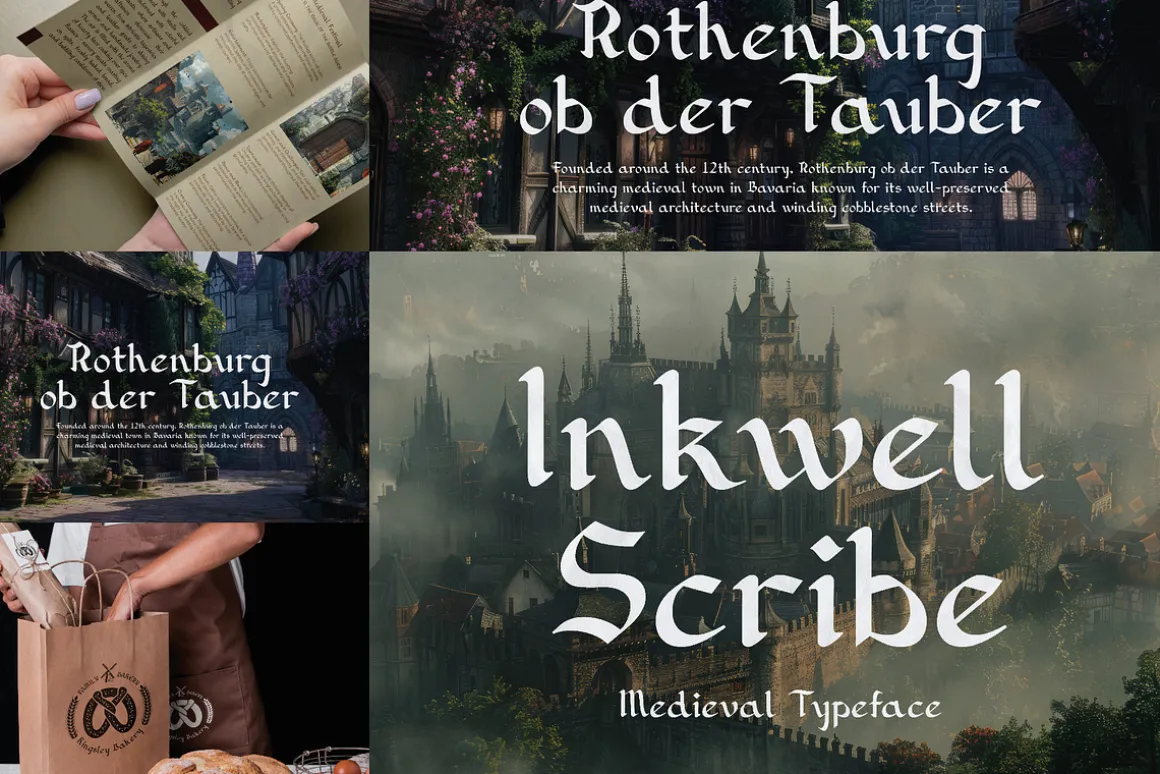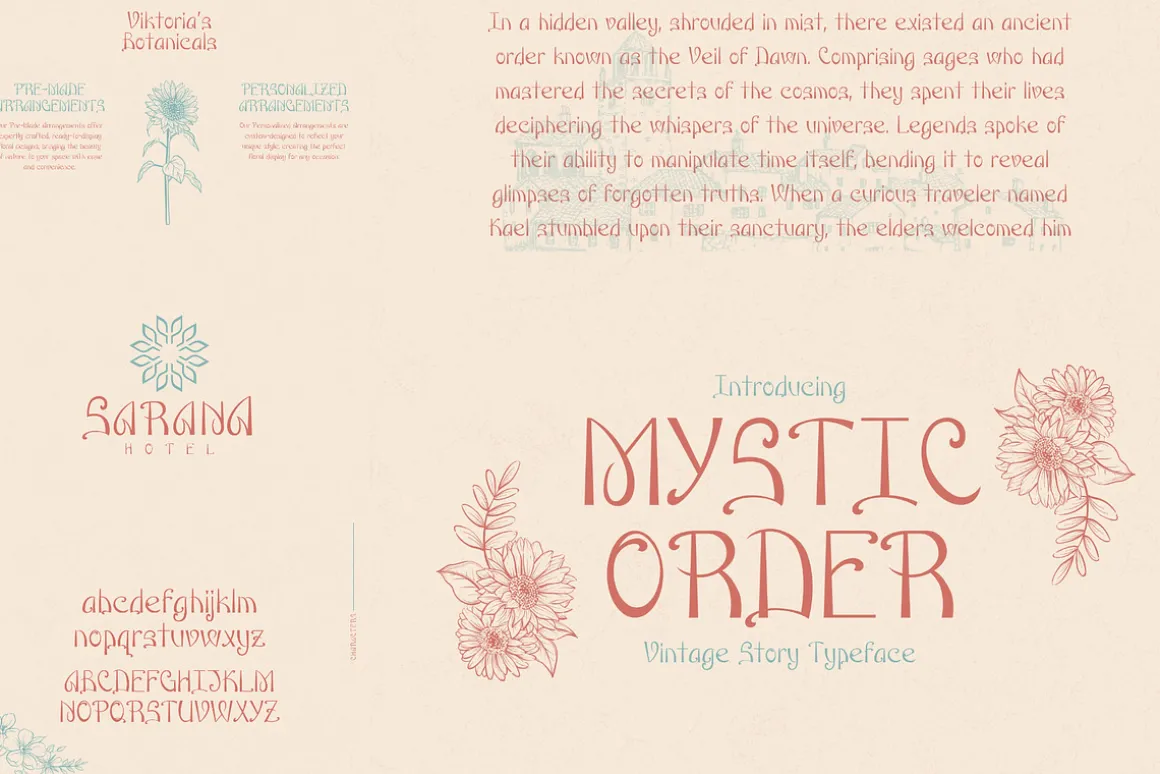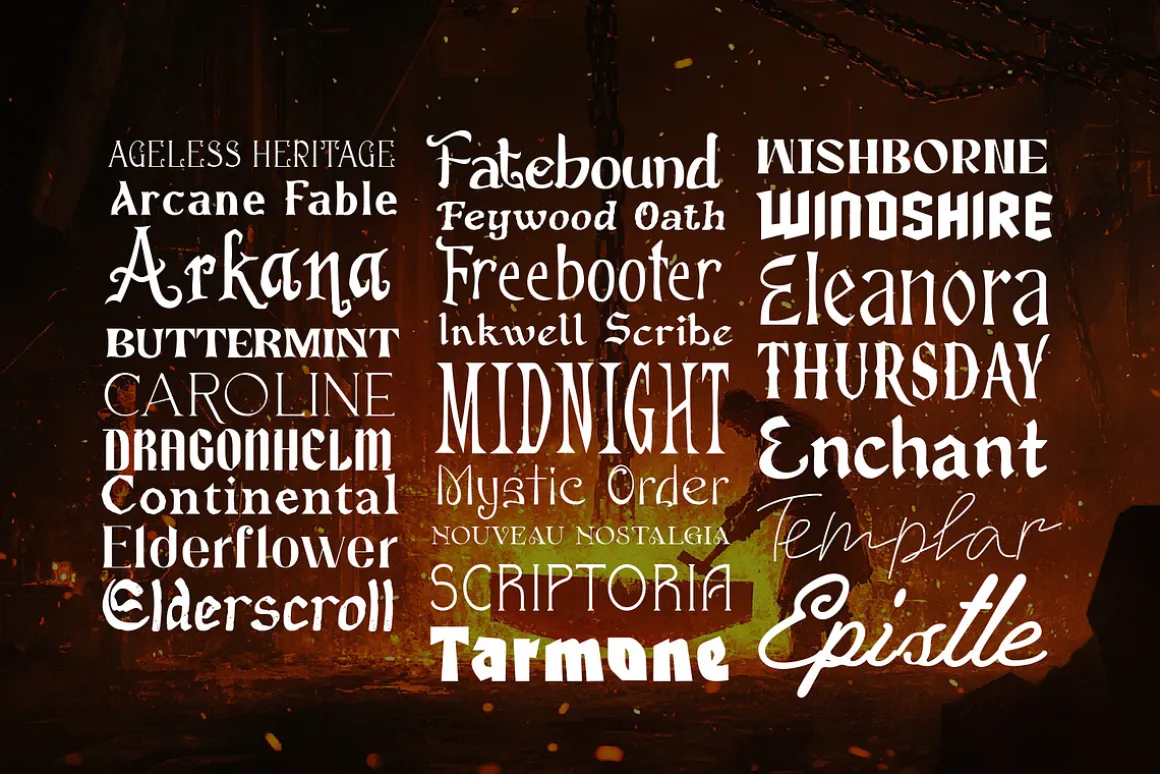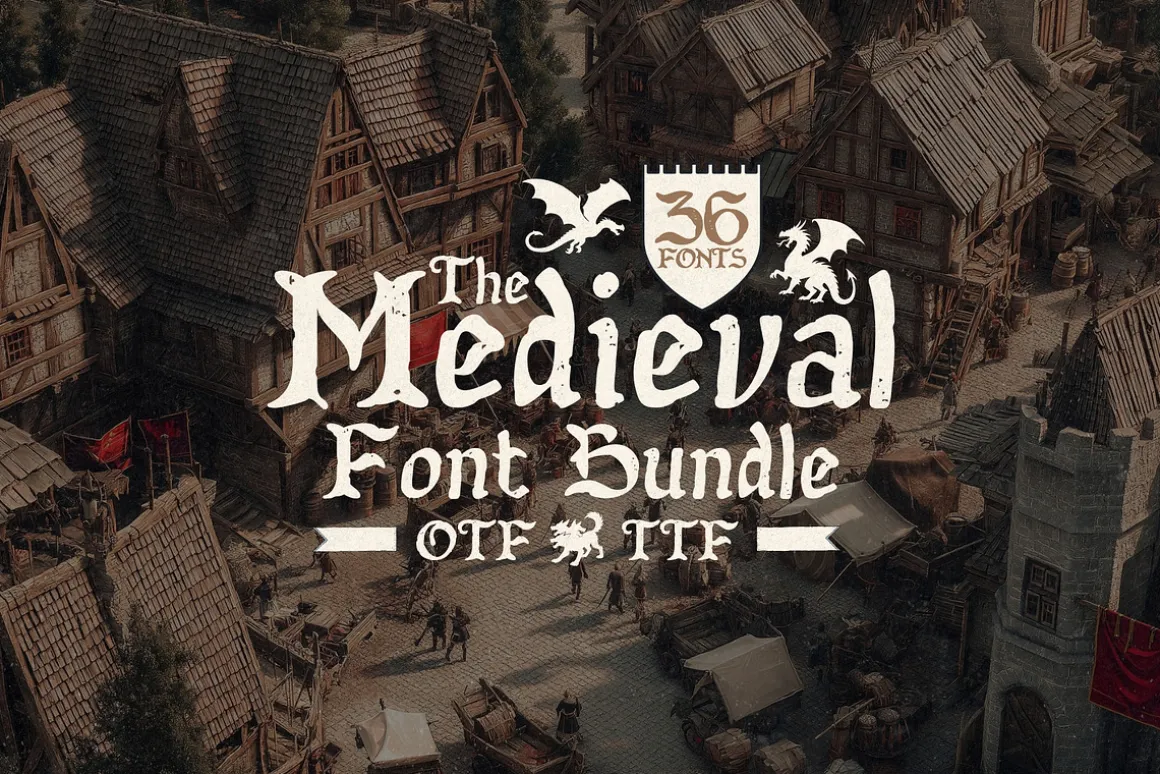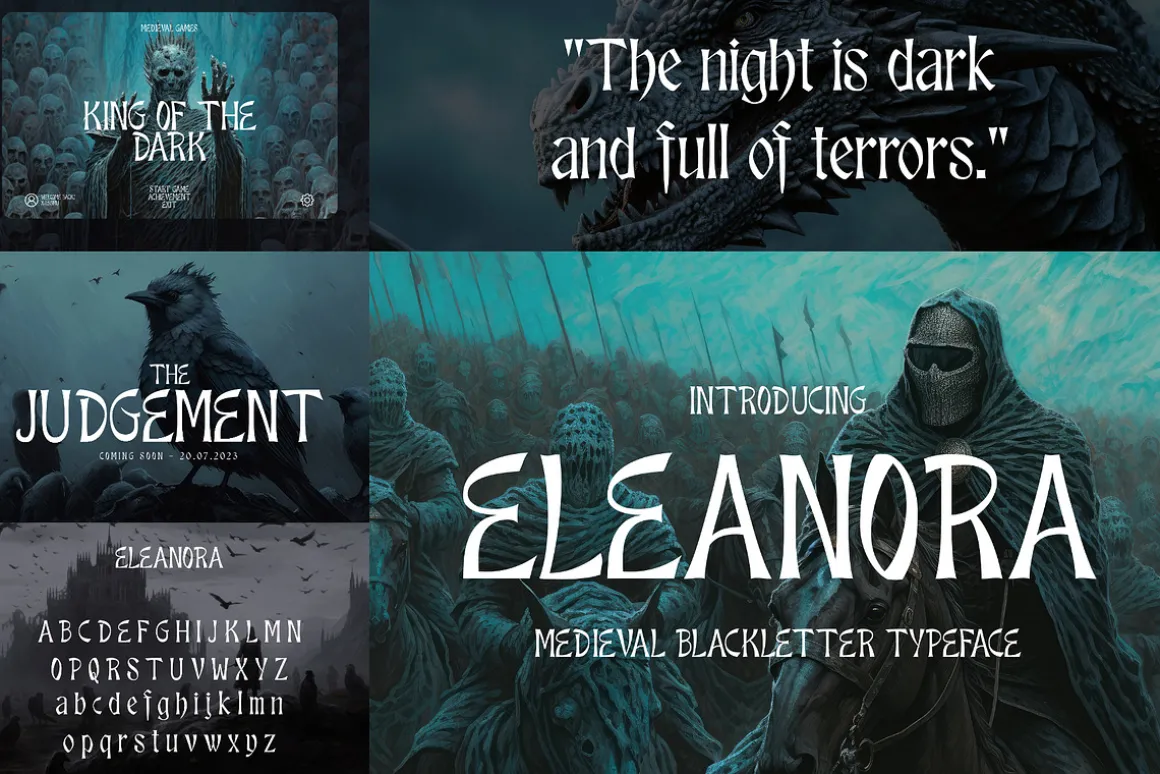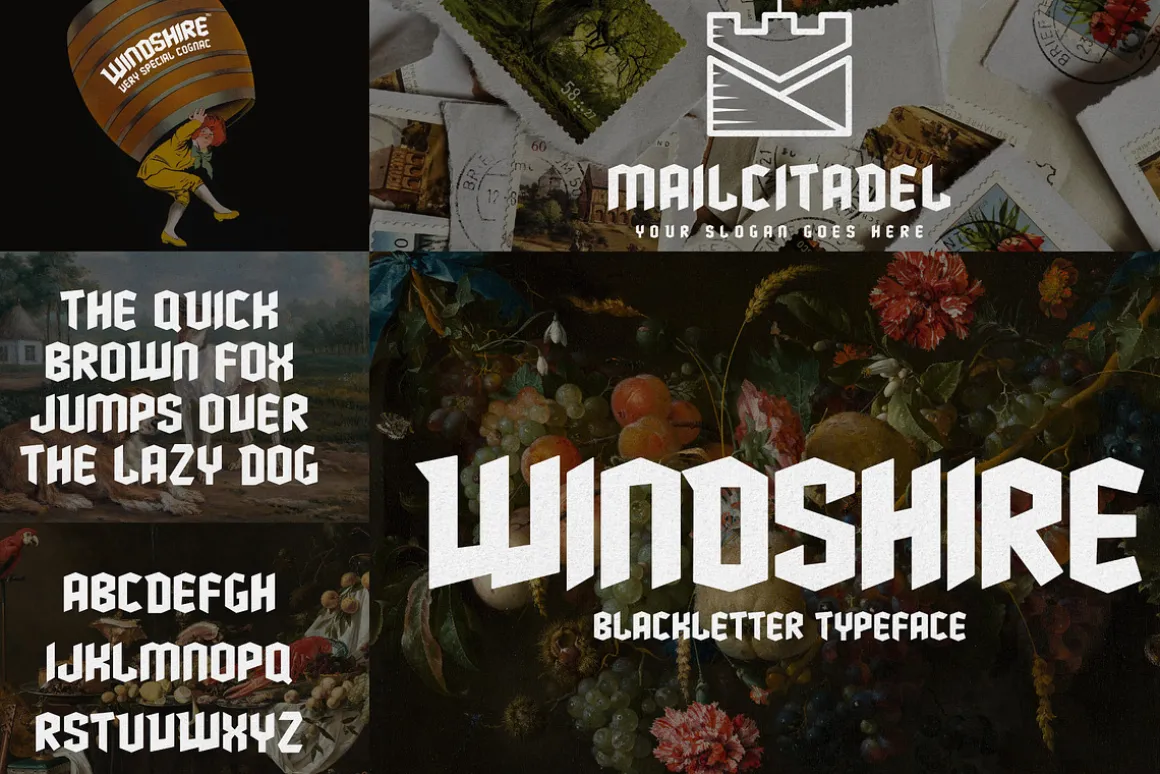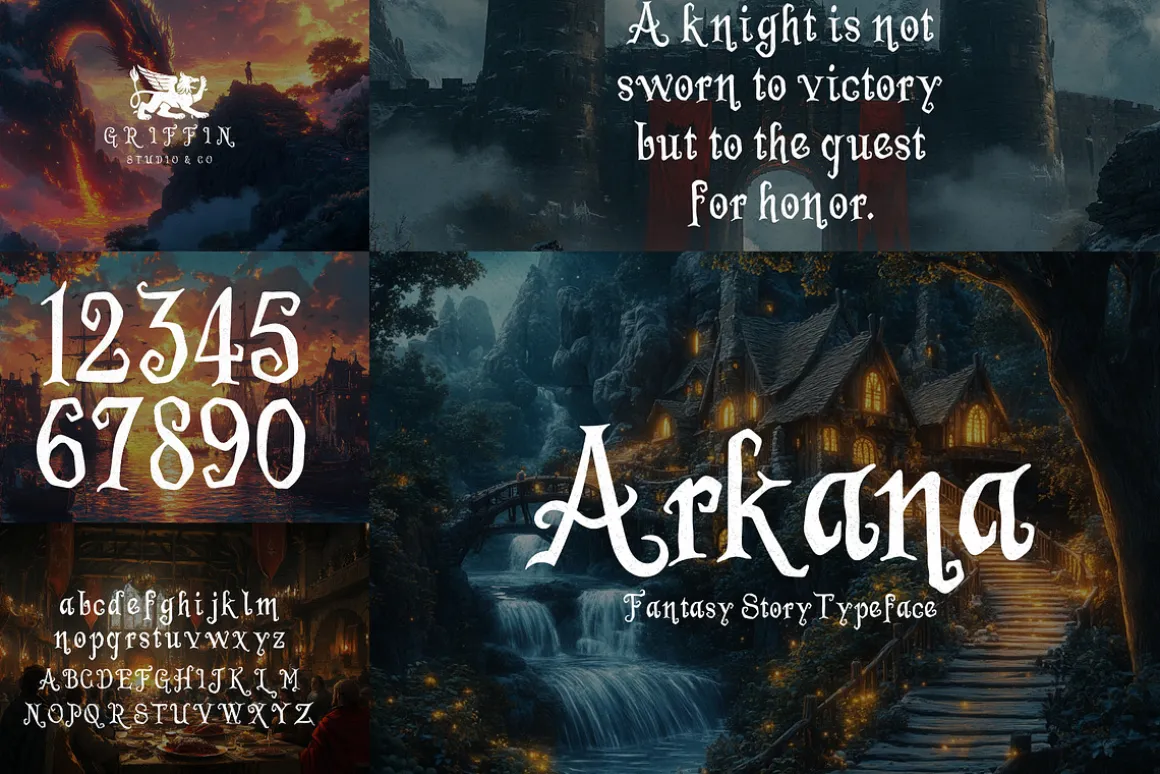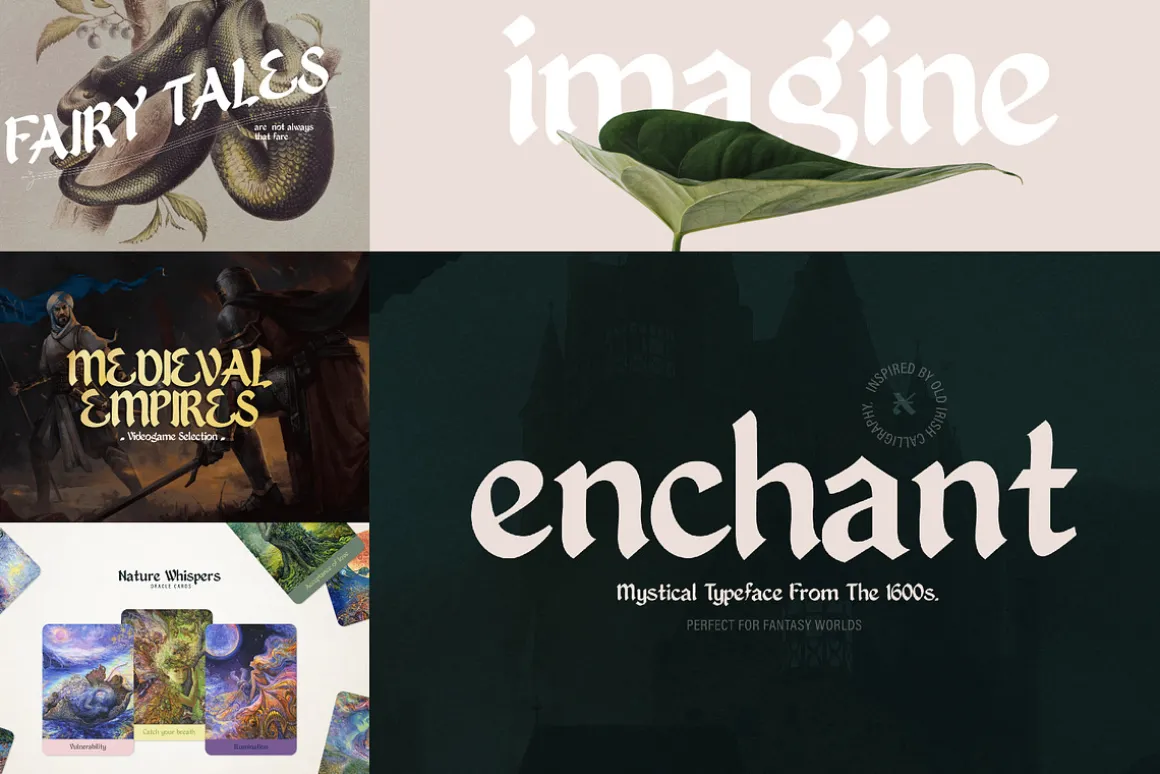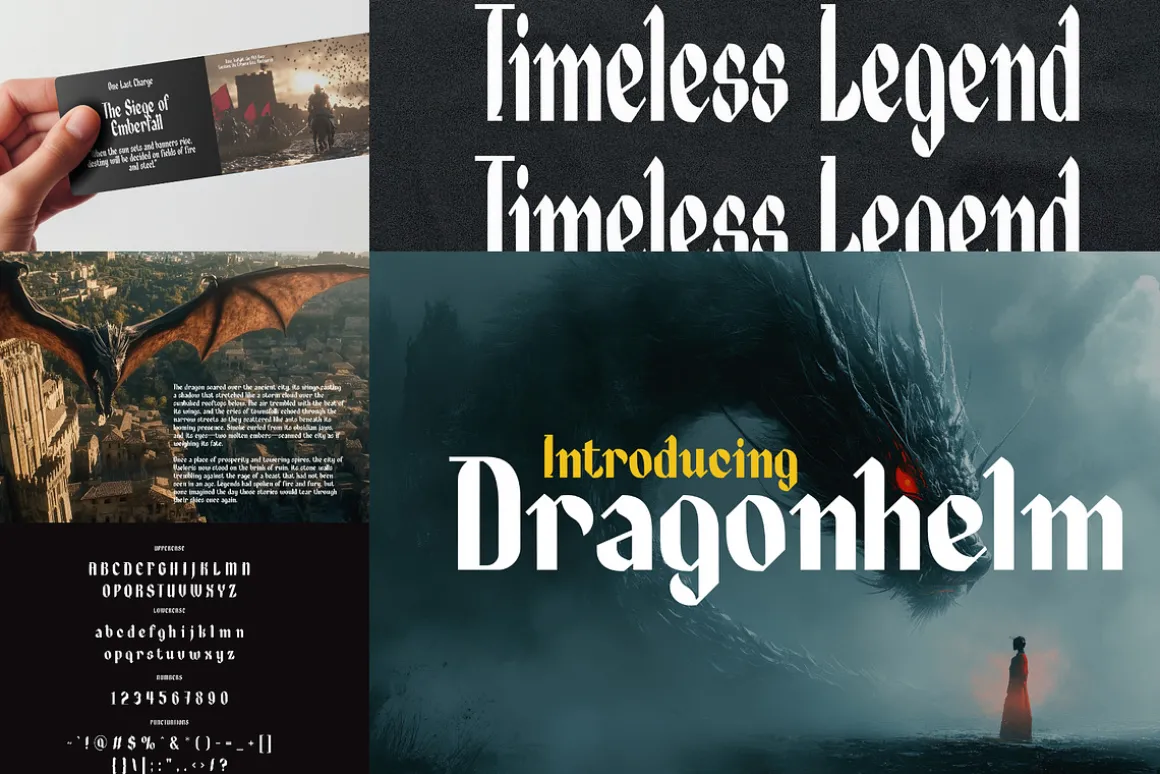
Step into the grandeur of the past with The Old English Font Bundle, a legendary collection of 36 meticulously crafted typefaces inspired by the age of knights, kings, and ancient manuscripts. This is more than just a font bundle; it is a portal to the medieval era, where calligraphy was an art form, and words carried the weight of empires.
- 36 Unique Old English Fonts – Each typeface is designed to embody the strength, elegance, and mystery of antique lettering.
- Authentic Medieval & Gothic Aesthetic – Perfect for branding, book covers, historical projects, posters, invitations, and more.
- Royal, Timeless, and Bold – Whether you’re crafting a fantasy novel, vintage whiskey label, or historical documentary, these fonts add instant prestige.
Unleash the power and elegance of Old English typography and give your projects the regal touch of history.